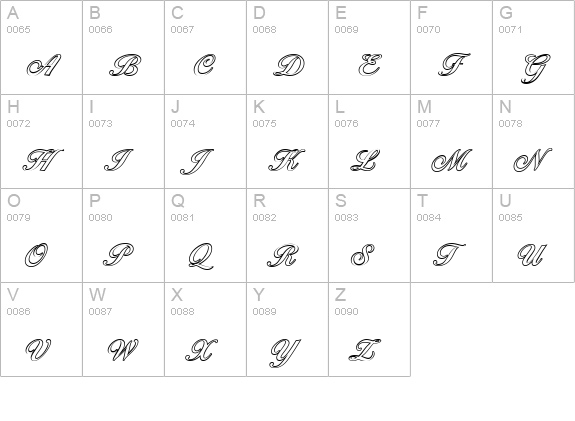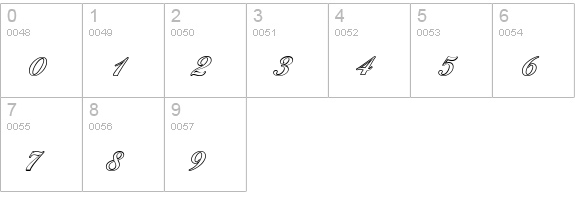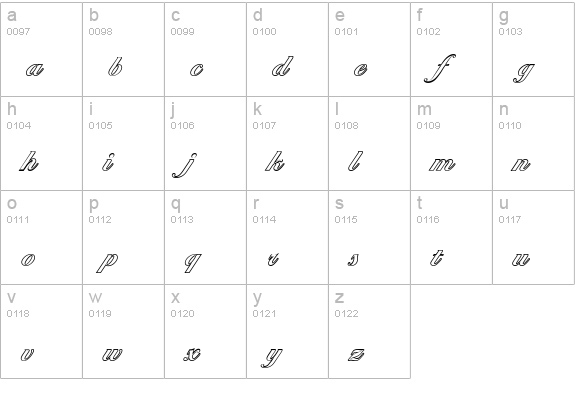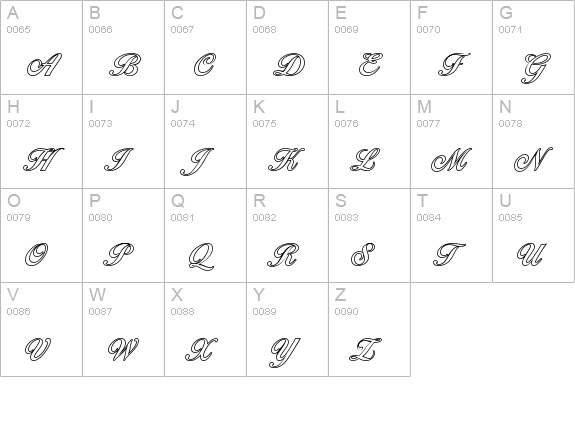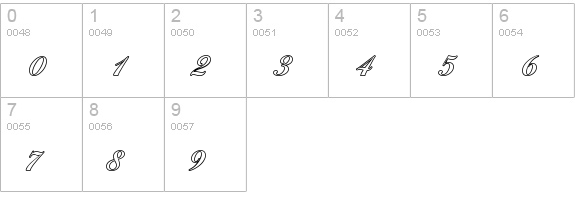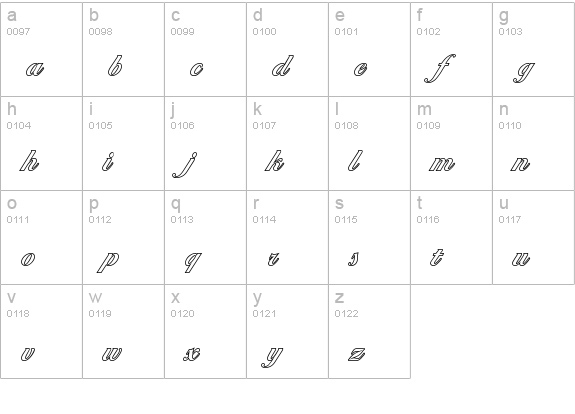
BallantinesOutline-Bold is a strong, high-contrast variant in the BallantinesOutline typeface family \xE2\x80\x94 well suited to headlines, attention-grabbing titles, and strong calls-to-action.
BallantinesOutline-Bold is a striking and modern font that commands attention with its bold and sleek design. This versatile typeface is perfect for a variety of design projects, from branding to advertising to web design. The clean lines and distinct characters of BallantinesOutline-Bold make it stand out from the crowd and give your text a strong and polished look. What's even better is that BallantinesOutline-Bold is available for free download at FontsMarket.com! This means you can easily access this stylish font without any cost, making it a valuable addition to your font collection. Whether you're a professional designer or a hobbyist looking to elevate your projects, BallantinesOutline-Bold is a fantastic choice that won't break the bank. Download it today and see the difference it can make in your designs.